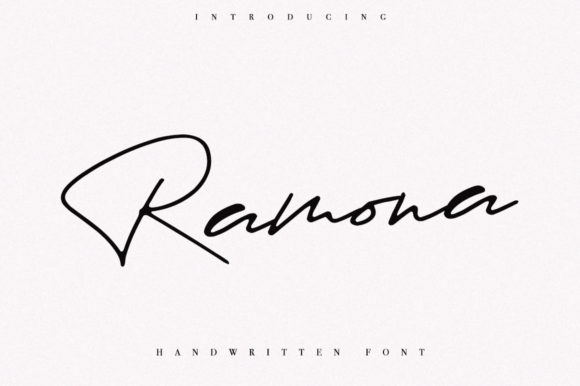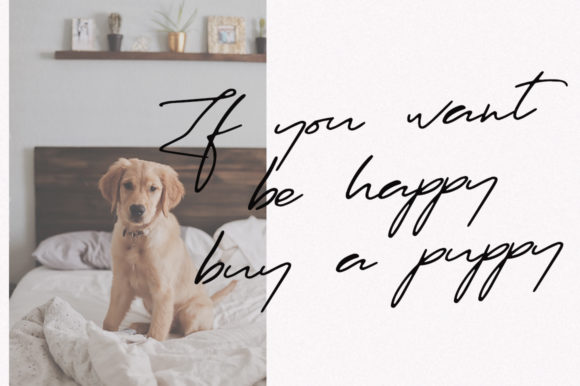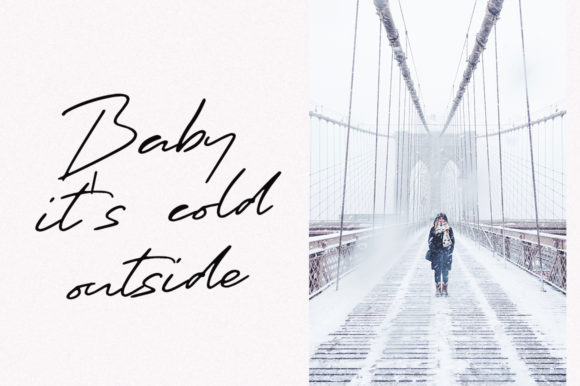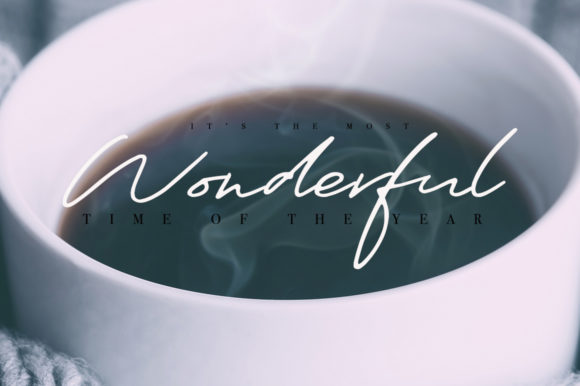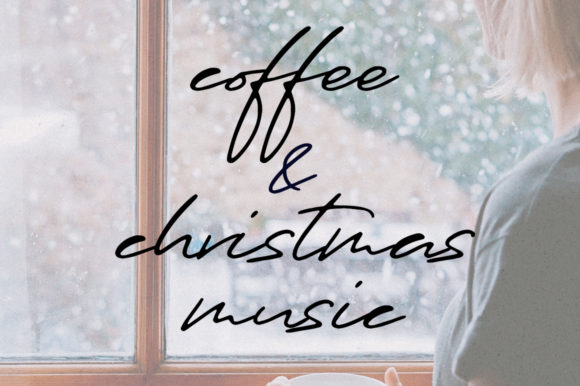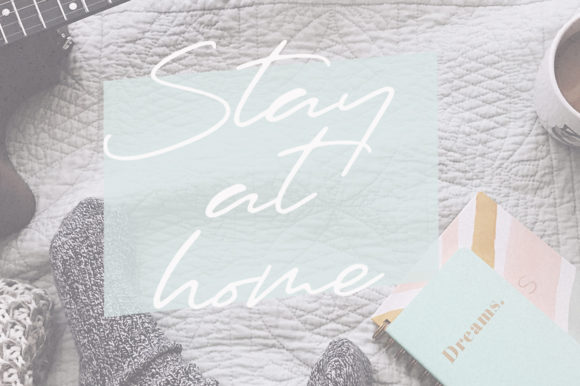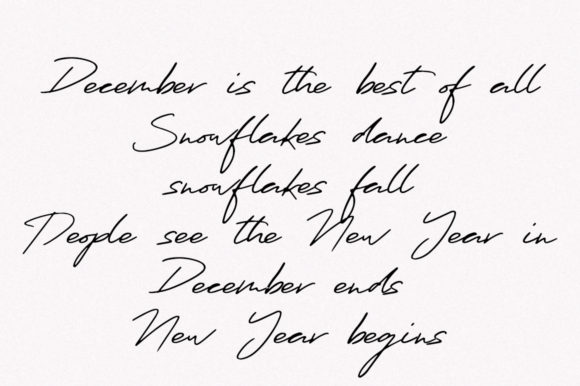
HomeScript FontsRamona Font Script Fonts Ramona Font FacebookXPinterestWhatsApp Ramona Font Poster 2 Ramona Font Poster 3 Ramona Font Poster 4 Ramona Font Poster 5 Ramona Font Poster 6 Ramona Font Poster 7 About Ramona Font Ramona is a gorgeous handwritten font. It will add a unique and elegant touch to any crafting project. DOWNLOAD NOW People also explored Kastangel Font Daiquiri Beautiful Font Minescript Font New Star Font Austin Pen Font Heather Red Bella Canvas 3001 Mockup Valentine Butterfly Font Sanzibar Schreef Font 277 0 TagsRamona Font Previous articleGrimalkin FontNext articleKatrina Signature Font LEAVE A REPLY Cancel reply Comment: Please enter your comment! Name:* Please enter your name here Email:* You have entered an incorrect email address! Please enter your email address here Website: Save my name, email, and website in this browser for the next time I comment. Personal Use Free Fuixg Personal Use Free Read more about this font Orchid Personal Use Free Read more about this font Delions Personal Use Free Read more about this font Summer Pisces Personal Use Free Read more about this font BLOG Exploring Font Trends Shaping Communication in the Digital Era Fonts, like all design elements, are subject to trends. They play a crucial role in communicating a brand's personality,... Transform Your Website: Elevate Your Typography with 7 Best Web Font Generators Fonts That Capture the Spirit of New York City Top 7 Google Fonts Alternatives for Faster and Privacy-Friendly Web Design (2025)